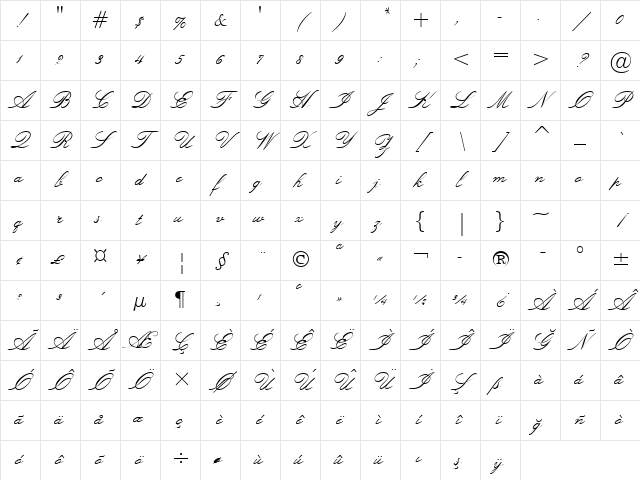
Lucia BT Regular
Lucia BT Family
Design Context for Lucia BT
Lucia BT is a composed and adaptable typeface that performs quietly and consistently across a wide range of design contexts.